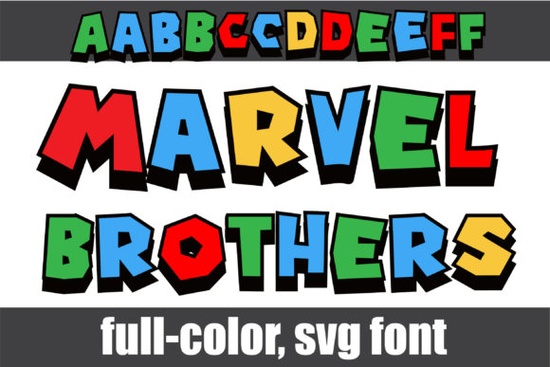
If you're looking for a bold, playful font that stands out on posters, t-shirts, or school projects, the Marvel Brothers Font is a great choice. It features bright, blocky letters in primary colors red, blue, yellow with strong black shadows that give it a 3D effect. The design feels energetic and fun, perfect for kids’ crafts, back-to-school themes, or any project where you want to grab attention.
What makes this font special?
The Marvel Brothers Font isn’t just a regular font it’s a full-color OpenType-SVG font. That means each letter carries its own color and shadow details, so you don’t need to manually colorize or layer text. Everything shows up exactly as intended when you type.
- Colorful blocks with built-in shadows no extra steps needed
Because of its bright, clean look, it pairs well with simple backgrounds white, black, or pastel tones to keep the focus on the text.